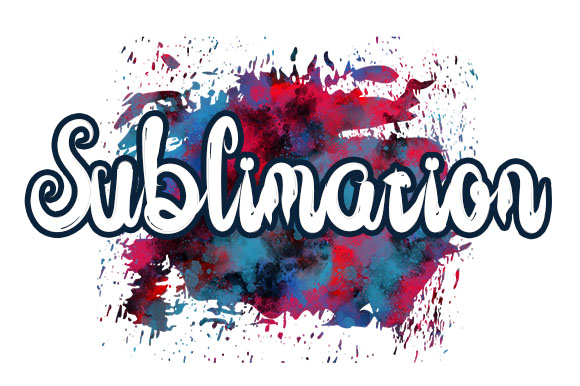
Sublimation Script Typeface
This is a cool and simple handwritten font. Its playfully and charming shape makes this font easily readable and very fun to use in a variety of projects. https://www.creativefabrica.com/product/sublimation-7/ref/245145/